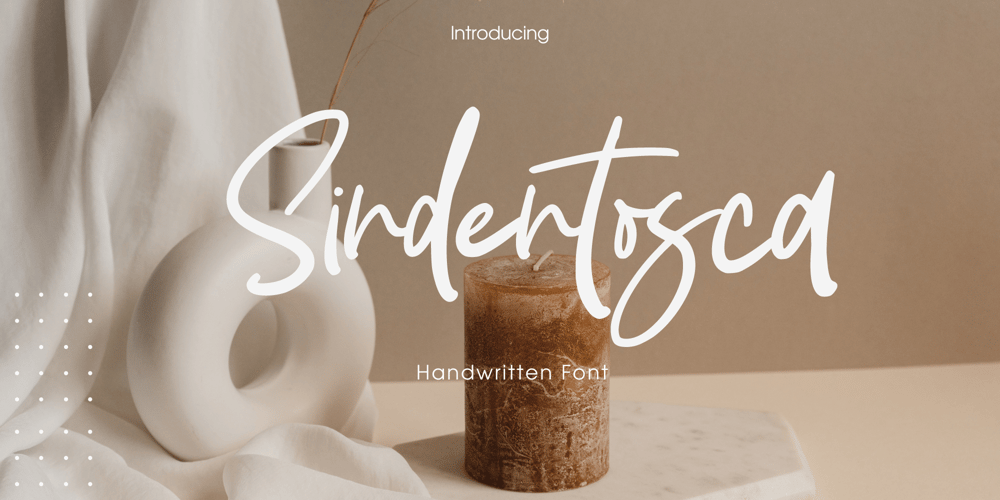
Sindentosca Font Family was designed by Amin Maryono and published by Aminmario Studio. Sindentosca contains 2 styles and family package options. Sindentosca FontSindentosca is a handwritten font. Its modern charm makes it appear wonderfully, readable, and, ultimately, incredibly versatile. This font will look outstanding in any context, whether it’s being used on busy backgrounds or as a standalone headline!Thank you for the purchase.Happy creating design 🙂